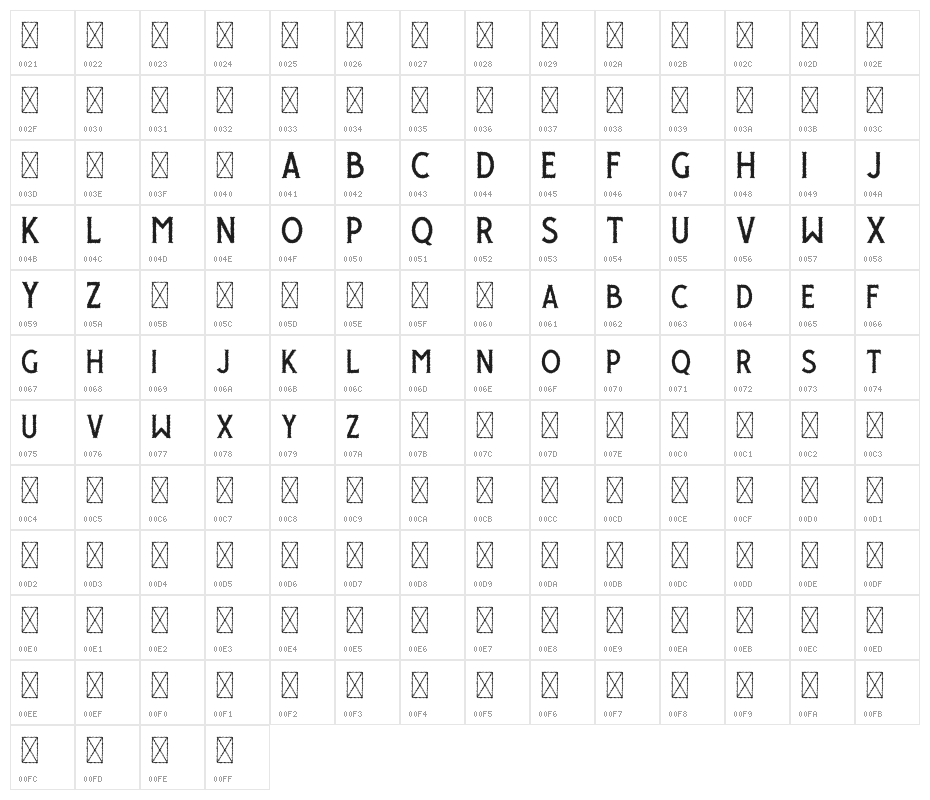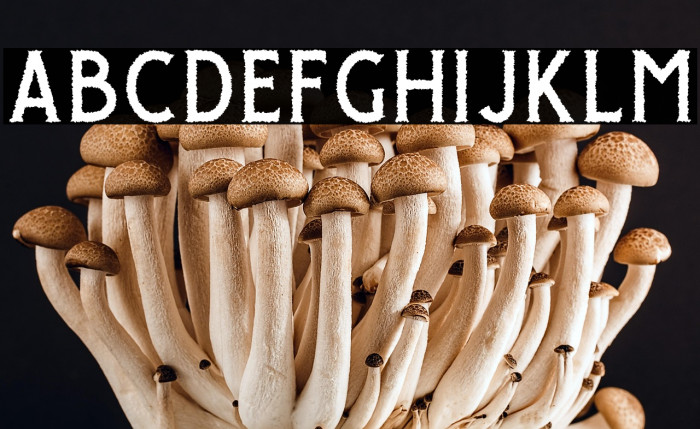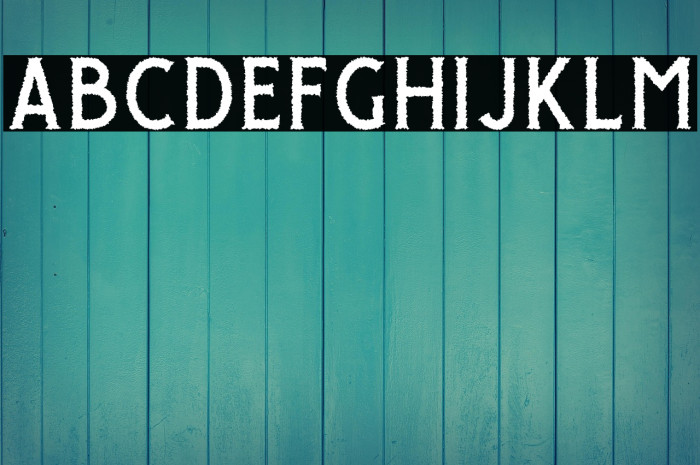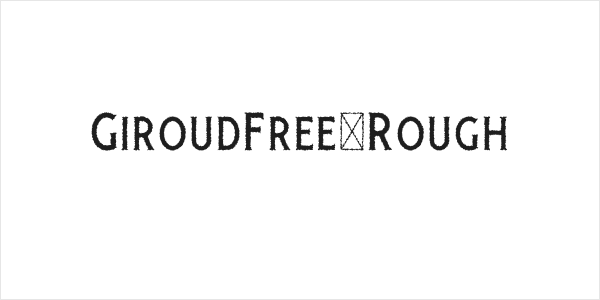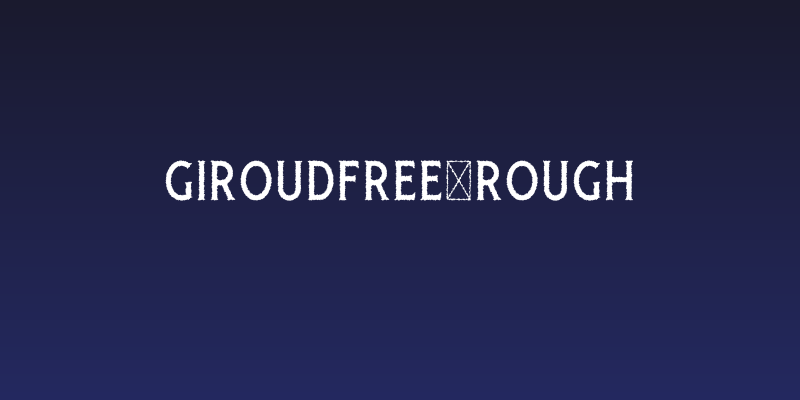
GiroudFree-Rough Font
GiroudFree-Rough Description
This font features a rough, textured appearance that gives it a hand-drawn, organic feel. The uppercase letters are bold and slightly irregular, adding a rustic charm. The strokes are uneven, with a distressed look that suggests a vintage or handcrafted style. The font maintains a consistent height across characters, ensuring readability while still embracing its unique, rugged aesthetic. The overall design is both striking and approachable, making it suitable for projects that require a touch of authenticity and character.
| Proposed Projects | Ideal for branding, packaging, posters, and any design needing a rustic or handcrafted touch. |